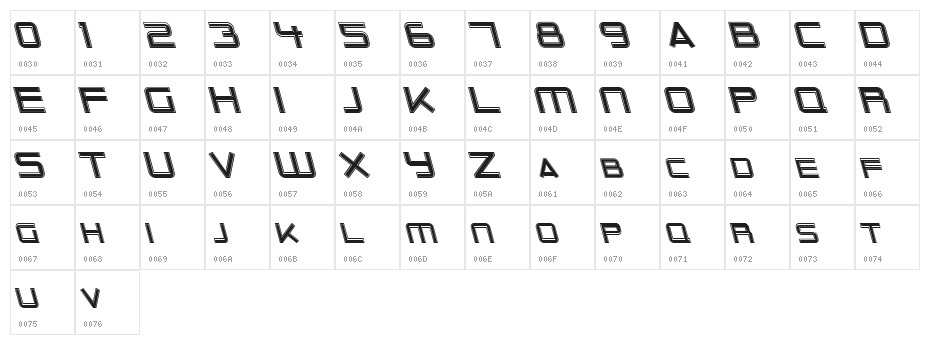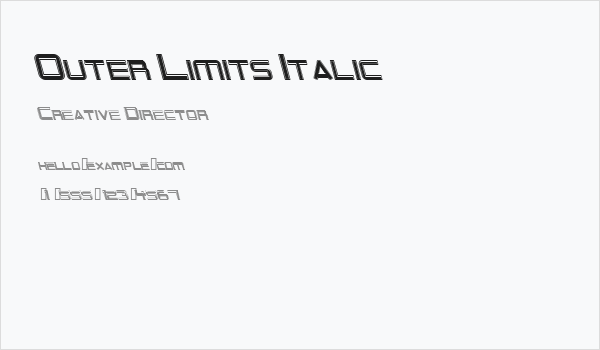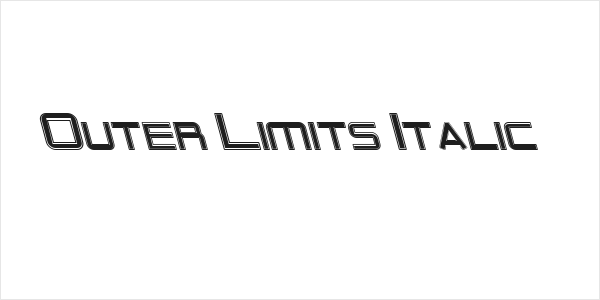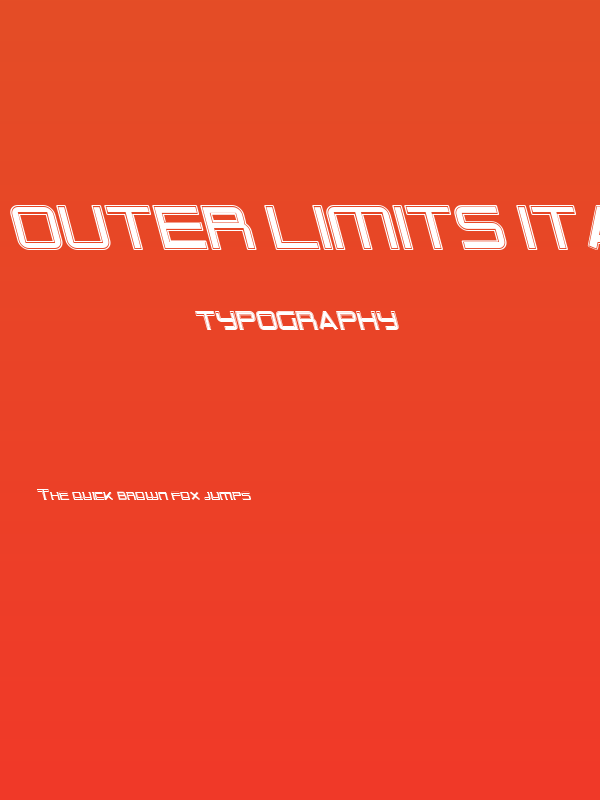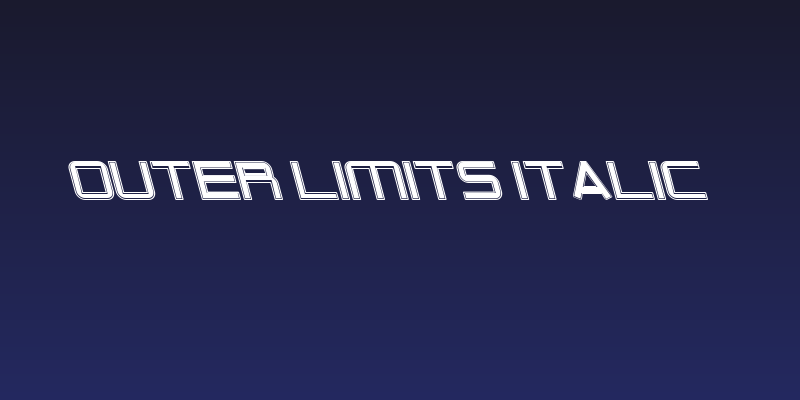
Outer Limits Italic Font
Outer Limits Italic Description
This font exhibits a futuristic and geometric design, characterized by its sharp angles and clean lines. The characters are outlined with a double-layered effect, giving them a three-dimensional appearance. The italic slant adds a dynamic and forward-moving feel, enhancing its modern aesthetic. The uppercase and lowercase letters maintain a consistent style, with a uniform height and width that contributes to a cohesive look. The numerals and special characters follow the same design principles, ensuring versatility across different uses. The overall style is bold and eye-catching, making it suitable for projects that require a strong visual impact.
| Proposed Projects | Ideal for sci-fi themed designs, technology branding, video game titles, and futuristic posters. |